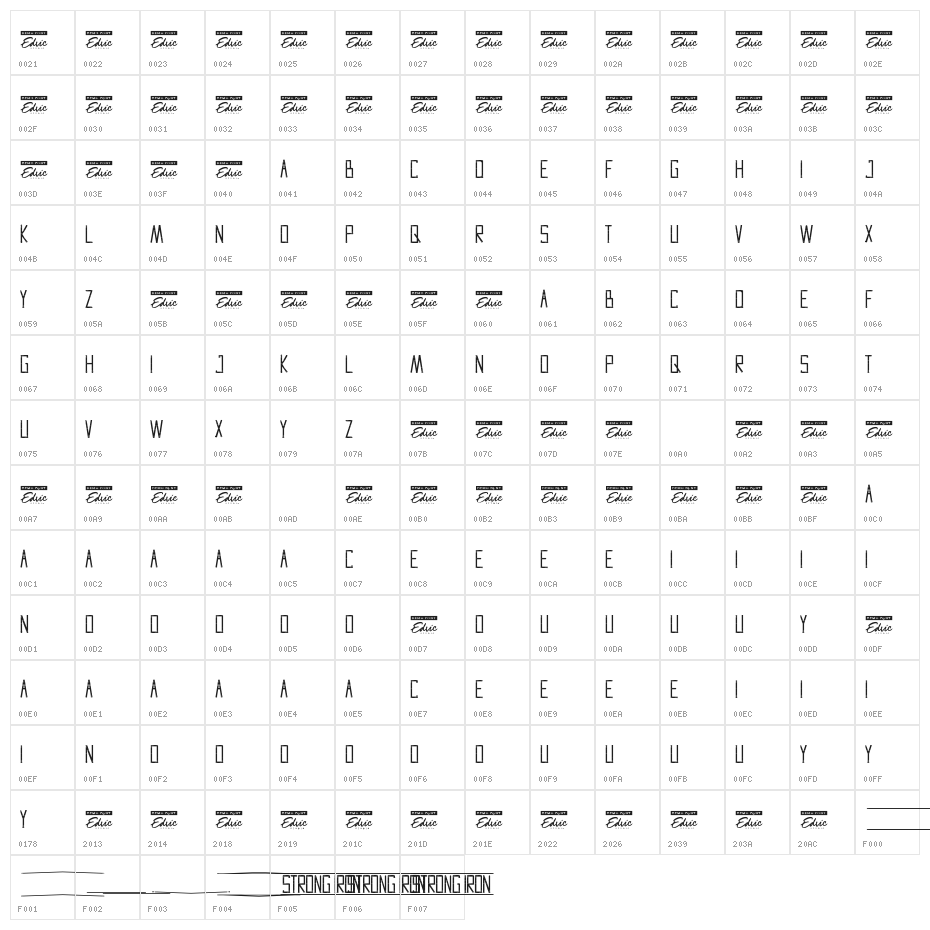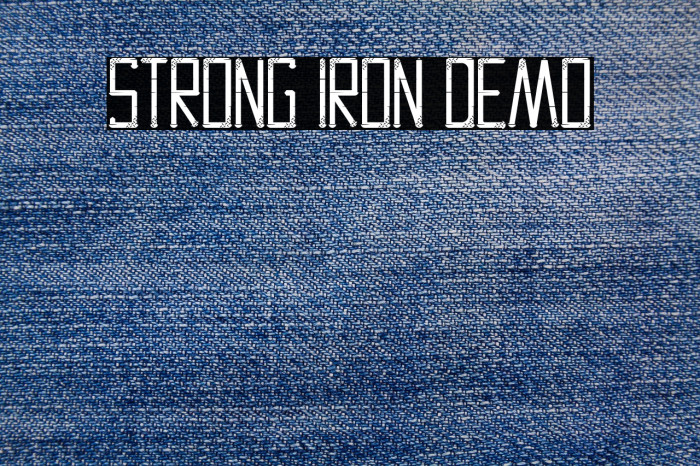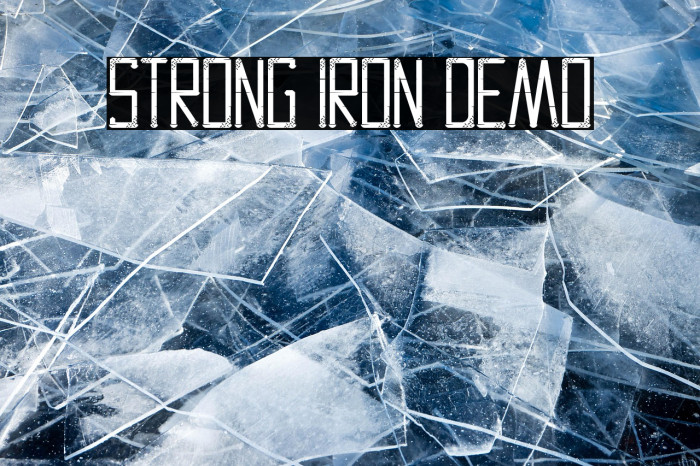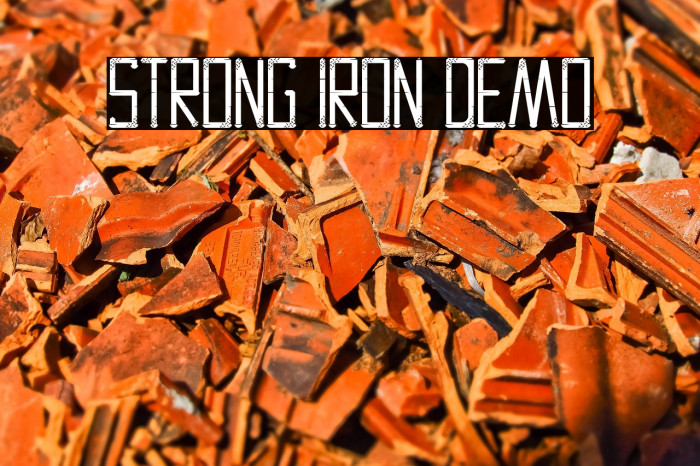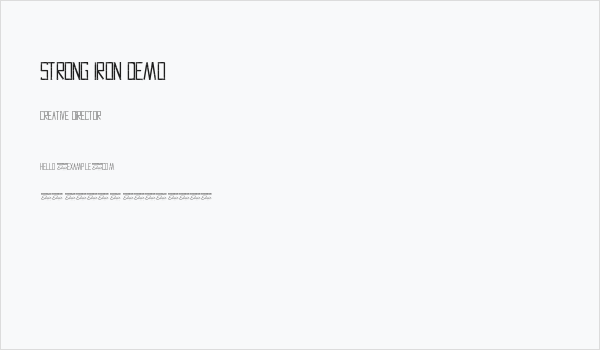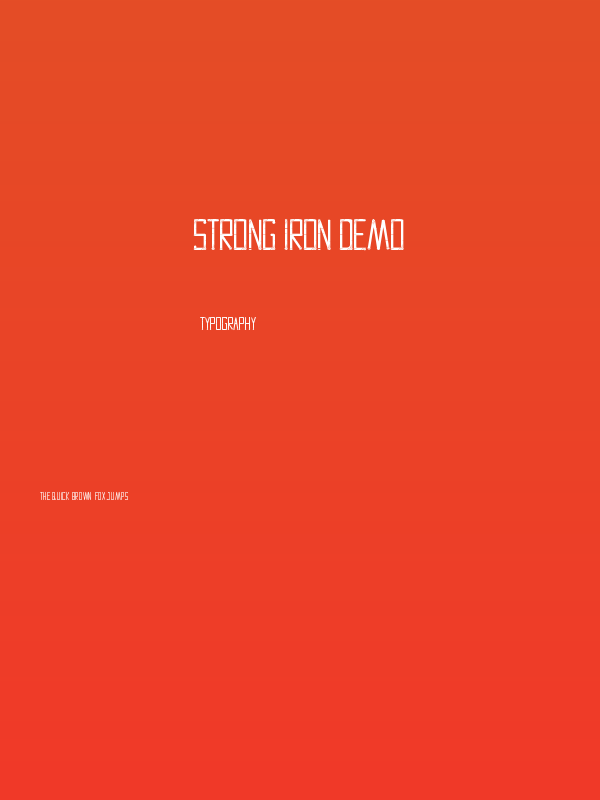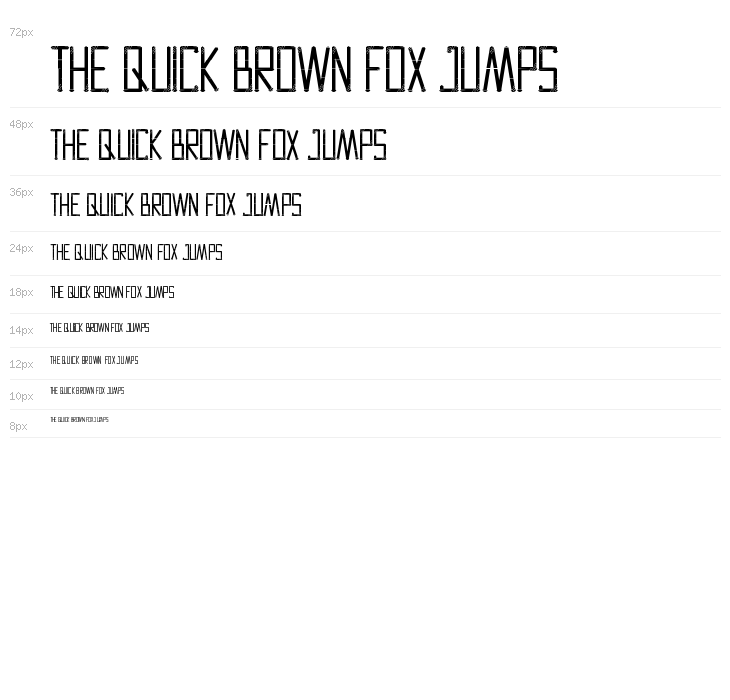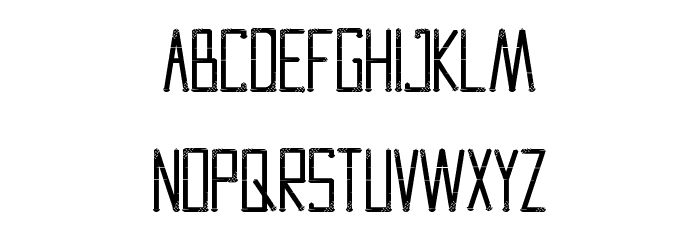
Strong Iron Demo Font
Strong Iron Demo Description
This font features a bold and industrial design, characterized by its strong geometric shapes and slightly distressed texture. The uppercase letters are tall and narrow, giving a sense of strength and stability. The font's unique texture adds a rugged, worn look, making it ideal for projects that require a touch of grit and toughness. The spacing between characters is relatively tight, enhancing its compact appearance. This font is particularly suitable for creating impactful headlines, posters, and branding materials that need to convey a sense of power and durability.
| Overall Style | Industrial, Rugged |
| Proposed Projects | Ideal for posters, branding, and headlines that require a strong, industrial look. |